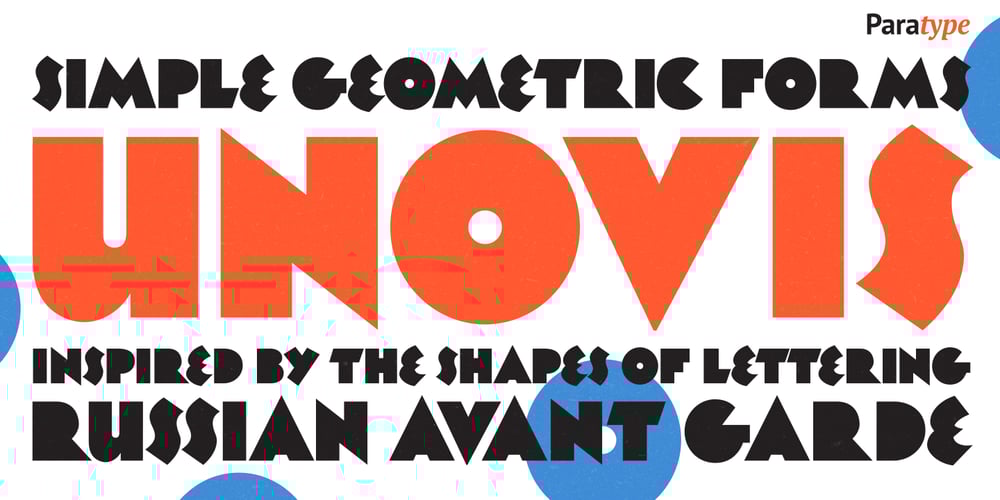
Unovis Font Family was designed by Tagir Safayev and published by ParaType. Unovis contains 1 styles and family package options. PT Unovis™ was designed for ParaType in 2001 by Tagir Safayev. Inspired by the shapes of lettering of the Russian Avant Garde artists of Kazimir Malevich’s circle at the beginning of the 20th century. Based on simple geometric forms. Caps only. For use in advertising and display typography.